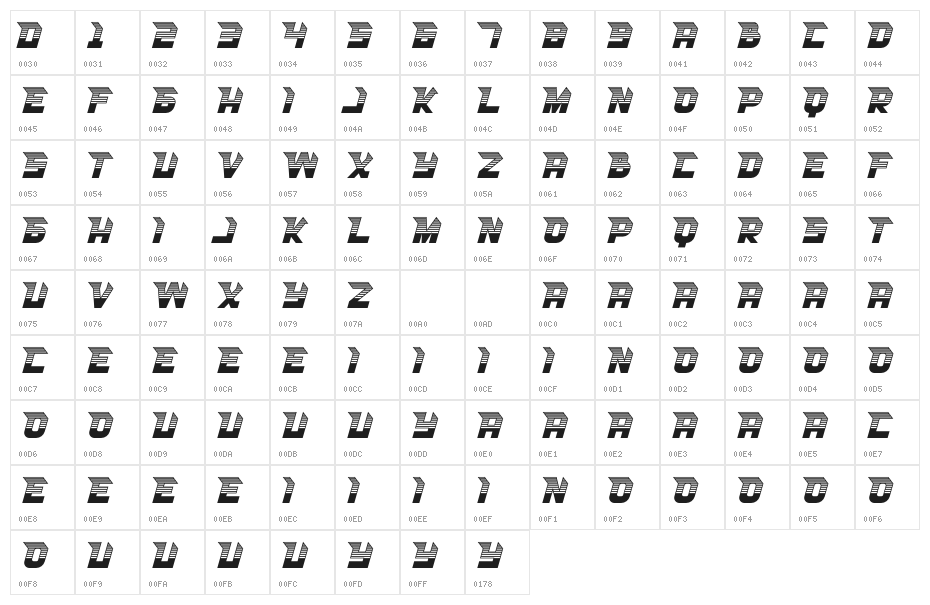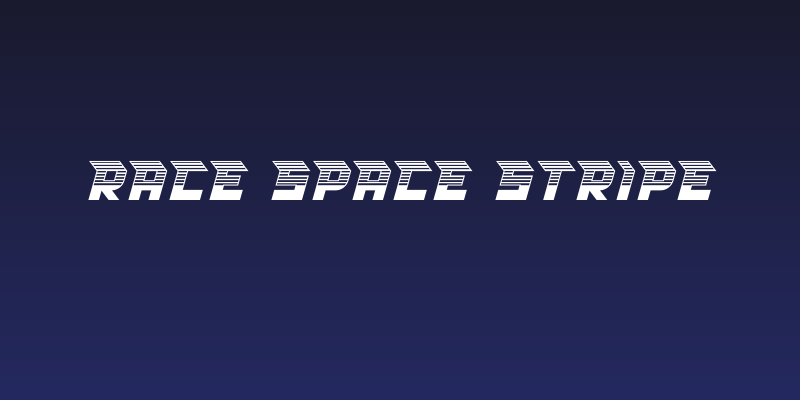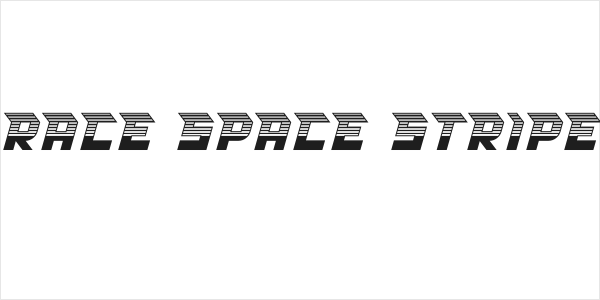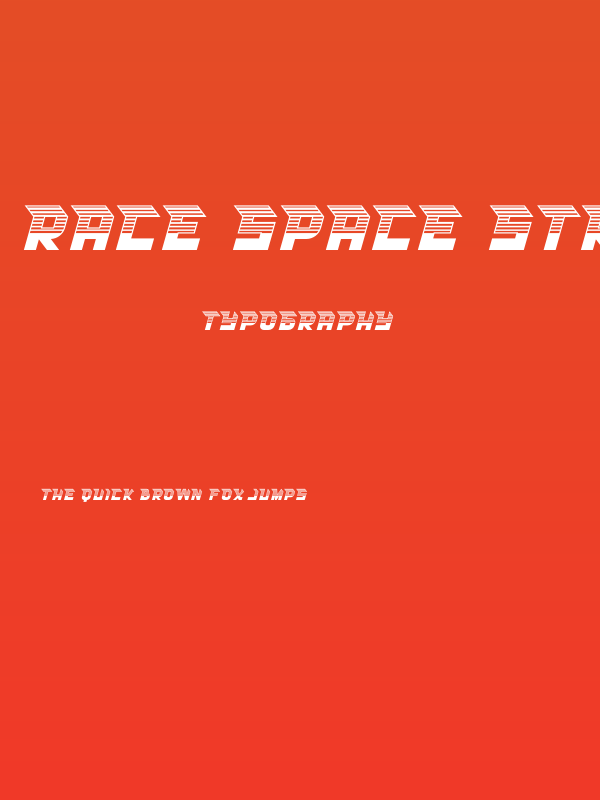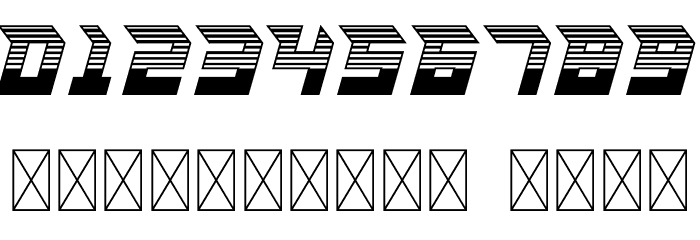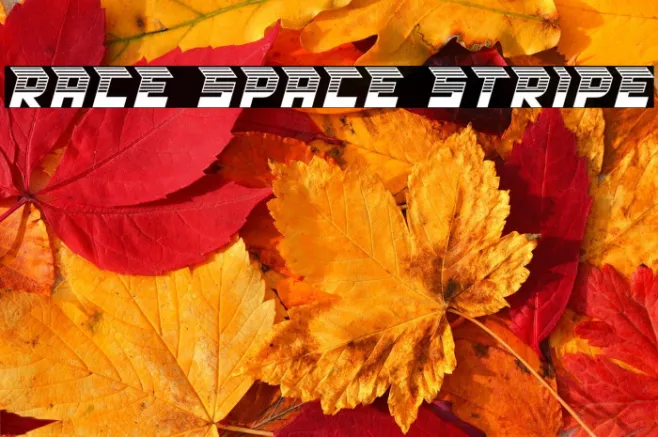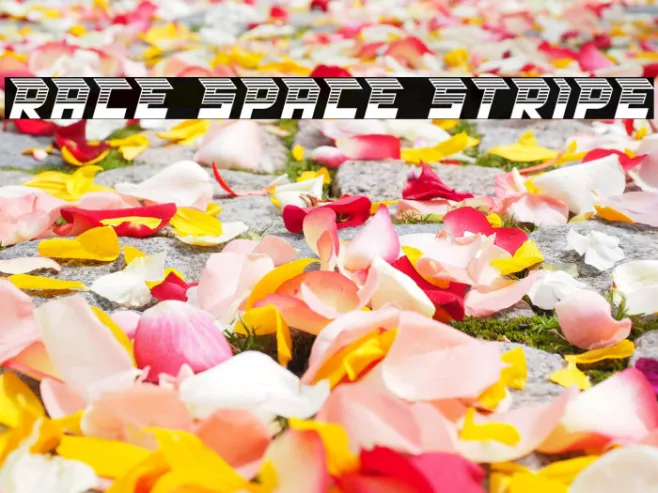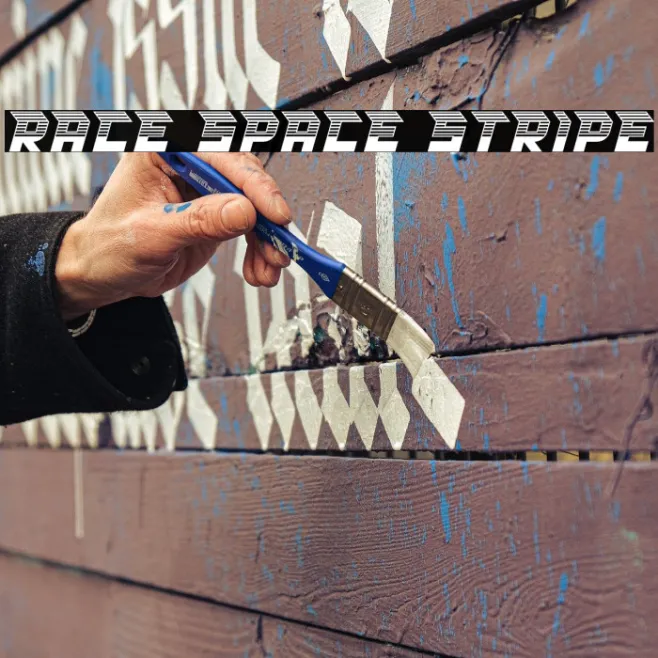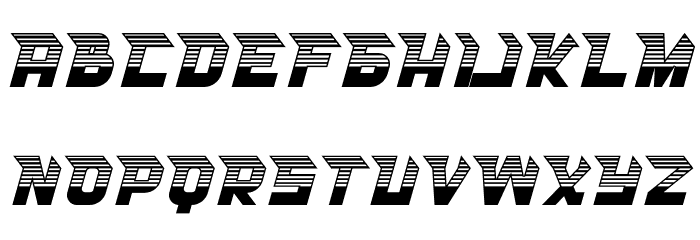
RACE SPACE STRIPE Font
RACE SPACE STRIPE Description
This dynamic and bold font features a futuristic design with a strong emphasis on speed and movement. The characters are crafted with sharp angles and a distinct stripe pattern that suggests motion and energy. The uppercase letters are particularly striking, with a solid, block-like appearance that commands attention. The numerals and special characters maintain the same energetic style, making the font ideal for projects that require a sense of urgency or modernity. The overall design is reminiscent of racing themes, making it perfect for automotive branding or sports-related materials.
| Proposed Projects | Ideal for automotive branding, sports materials, futuristic designs, and dynamic logos. |